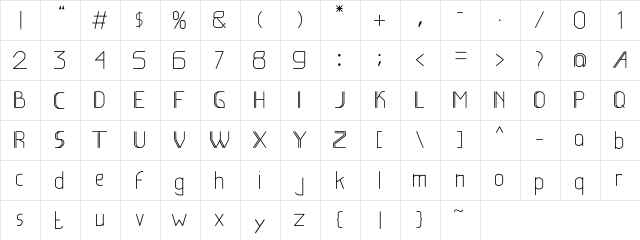
Be Lati Regular
Design Context for Be Lati Typeface
Be Lati takes a measured approach to typography — its balanced proportions and neutral character make it a reliable workhorse for both digital and print work.
Pro Tip: Use Be Lati in both headline and body roles to test its range before committing to a single application.